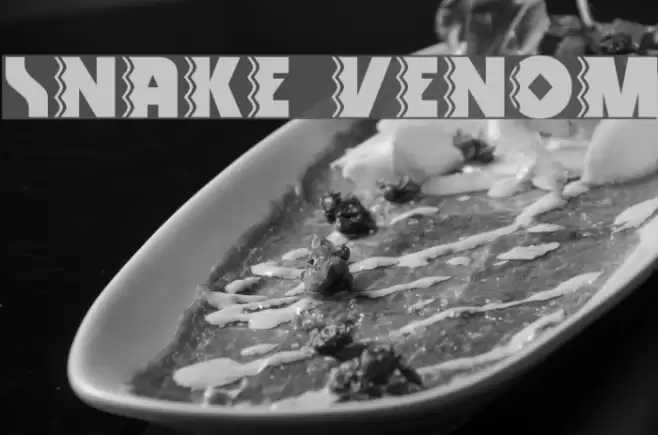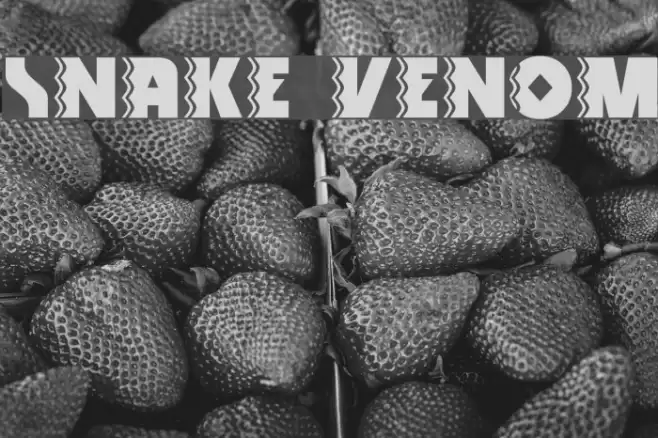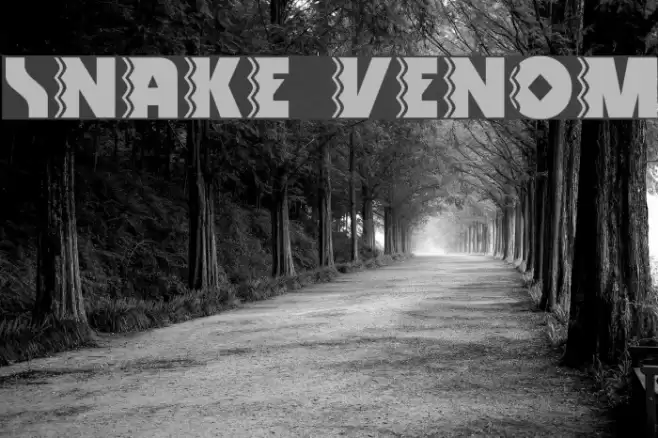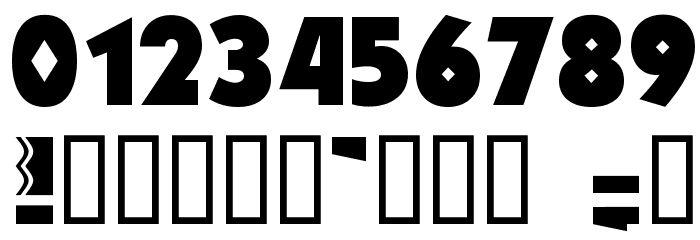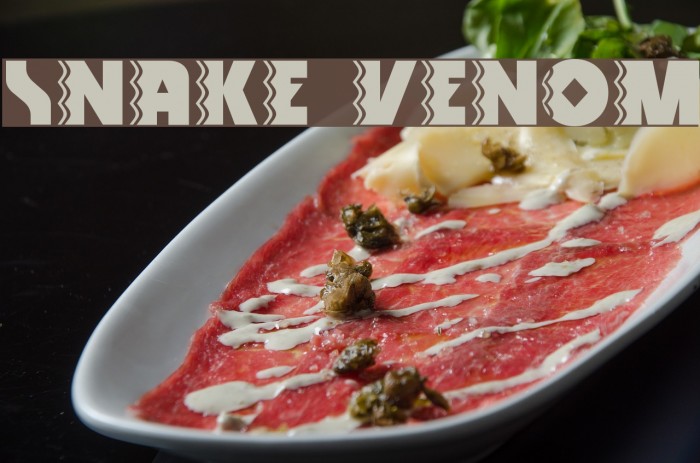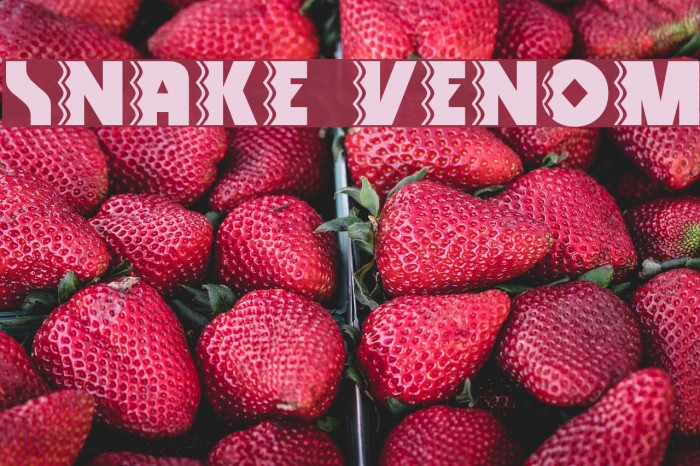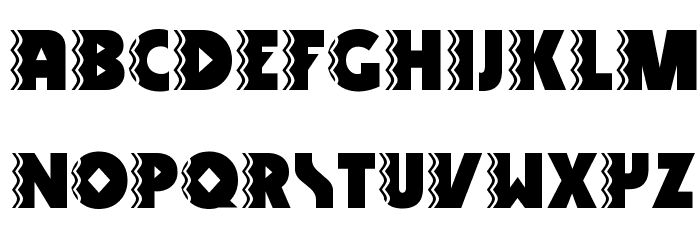
Snake Venom Font
Snake Venom Description
This font features a bold and striking design with a unique zigzag pattern running through the center of each character, reminiscent of a snake's movement. The uppercase letters are bold and imposing, with a consistent thickness that adds to their dramatic appearance. The numbers follow the same bold style, ensuring uniformity across all characters. The special characters are creatively designed to match the overall theme, making them stand out while maintaining coherence with the rest of the font. This font is ideal for projects that require a strong visual impact and a touch of creativity.
A bold, zigzag-patterned font with a dramatic and creative style from Broken fonts.
- Proposed Projects: Ideal for posters, logos, and branding projects that require a bold and unique visual identity.